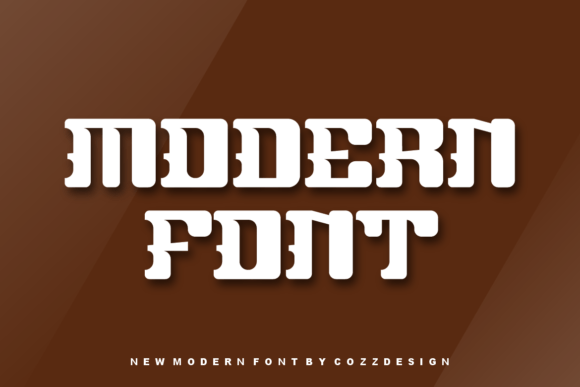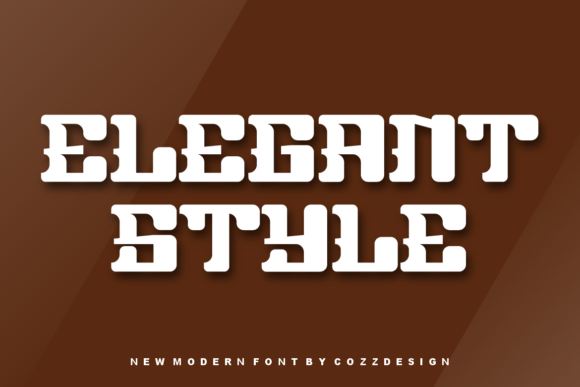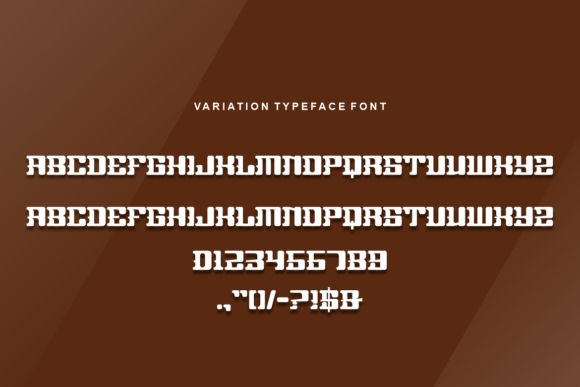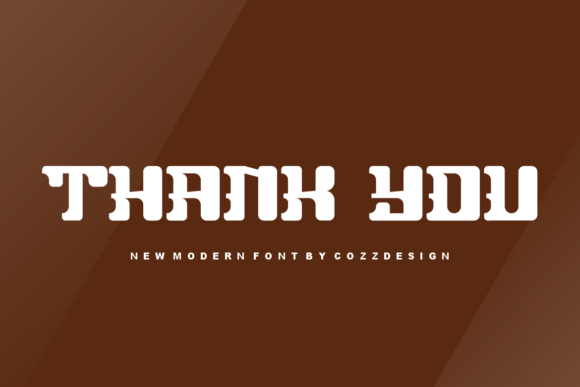
Introducing Bigmax Font: The Fun and Modern Display Font You Need
Are you tired of using the same old fonts in your designs? Look no further than Bigmax Font, a fun and modern display font that’s sure to brighten up any project. With its whimsical and quirky style, Bigmax Font is perfect for designers and crafters who want to add a touch of personality to their work.
What Makes Bigmax Font So Special?
Bigmax Font is a unique and eye-catching font that’s designed to make your designs stand out. Its modern and playful style is perfect for a wide range of projects, from posters and flyers to social media graphics and website headers. Whether you’re a professional designer or a DIY crafter, Bigmax Font is sure to become a favorite in your collection.
Key Features of Bigmax Font
- Fun and modern design: Bigmax Font has a fresh and contemporary style that’s perfect for designs that need a bit of personality.
- Whimsical and quirky: This font has a playful and lighthearted feel that’s sure to add a touch of whimsy to your designs.
- Highly versatile: Bigmax Font can be used for a wide range of projects, from print materials to digital designs.
- Easily readable: Despite its playful style, Bigmax Font is still highly readable, even at smaller sizes.
How to Use Bigmax Font in Your Designs
Bigmax Font is incredibly easy to use and can be incorporated into your designs in just a few simple steps. Here are a few ideas to get you started:
- Use it as a title font: Bigmax Font is perfect for titles and headings, where its bold and playful style can really make an impact.
- Add it to your social media graphics: Use Bigmax Font to add a touch of personality to your social media graphics, such as Facebook posts and Instagram stories.
- Create eye-catching posters and flyers: Bigmax Font is perfect for creating eye-catching posters and flyers that will grab attention and stand out from the crowd.
Why Designers and Crafters Love Bigmax Font
Bigmax Font has quickly become a favorite among designers and crafters, and it’s easy to see why. Here are just a few reasons why:
- It’s fun and playful: Bigmax Font adds a touch of personality and whimsy to any design, making it perfect for designers and crafters who want to create unique and eye-catching work.
- It’s highly versatile: Bigmax Font can be used for a wide range of projects, from print materials to digital designs, making it a great addition to any design collection.
- It’s easy to use: Bigmax Font is incredibly easy to use and can be incorporated into your designs in just a few simple steps.
If you’re looking for a fun and modern display font that’s sure to brighten up your designs, look no further than Bigmax Font. With its whimsical and quirky style, Bigmax Font is perfect for designers and crafters who want to add a touch of personality to their work. Whether you’re creating posters, social media graphics, or website headers, Bigmax Font is sure to become a favorite in your collection.